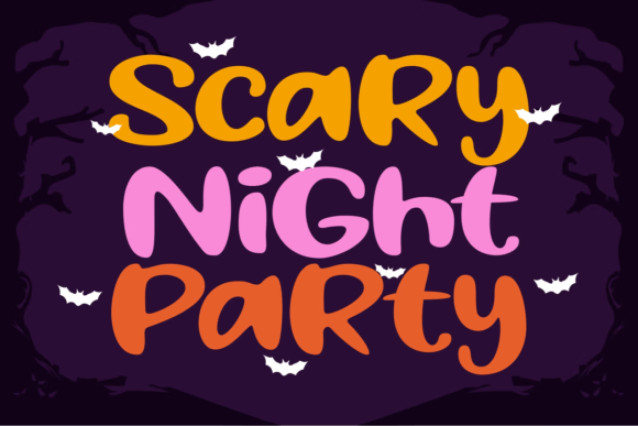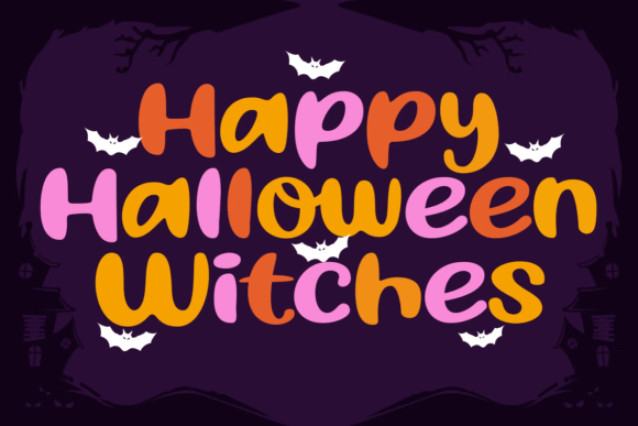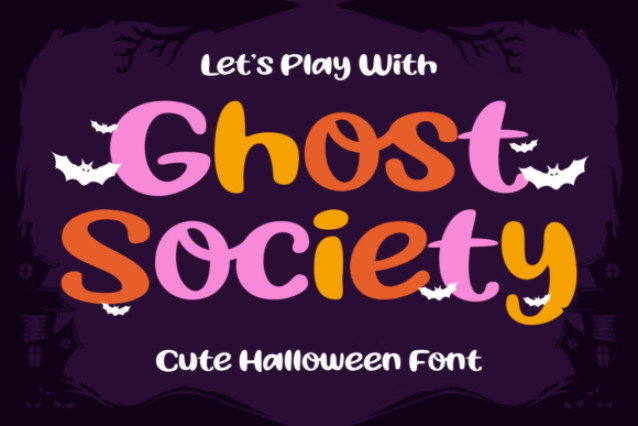
Ghost Society Font
Introducing Ghost Society, a playful and slightly whimsical font with a spooky twist. Perfect for infusing your designs with a ghoulish charm, it seamlessly brings a touch of Halloween aesthetic all year round. Suitable for those who seek a unique, yet adorable, typeface to spice up their graphics during the spellbinding month of October, and beyond.
Ghost Society is an undeniable asset for the delightfully daring designer.